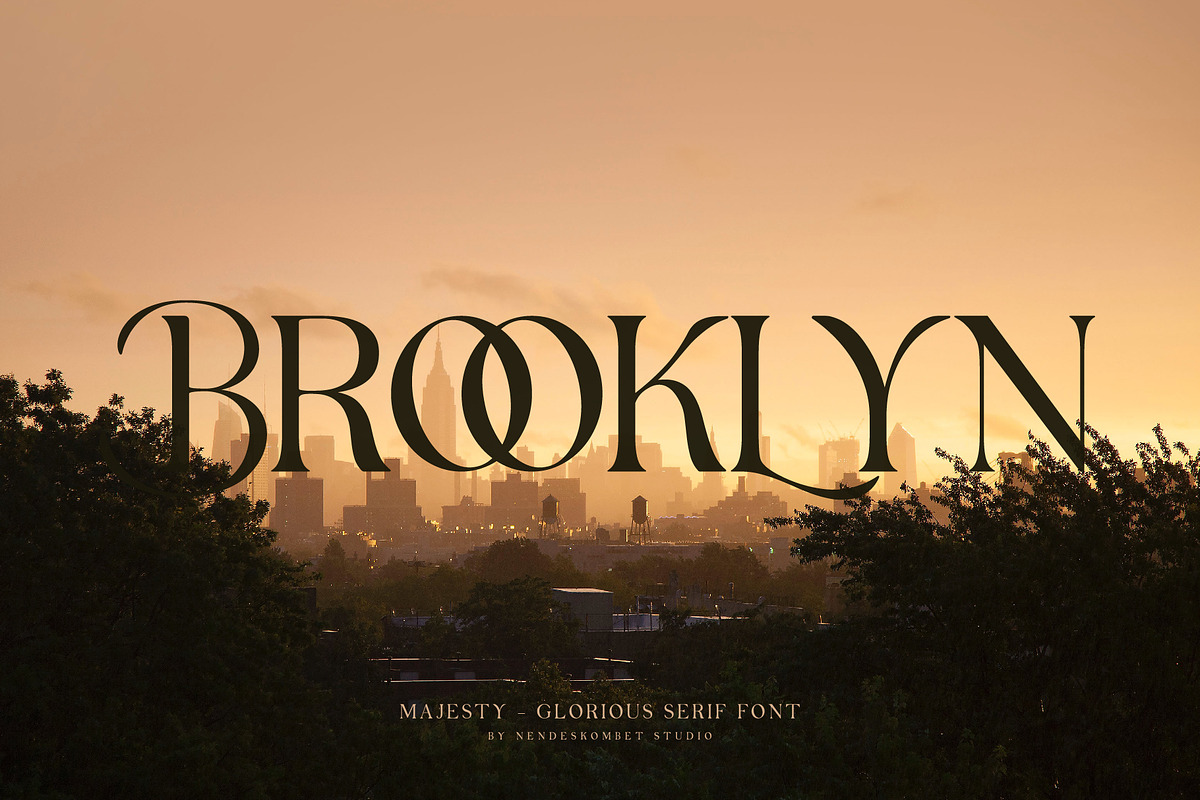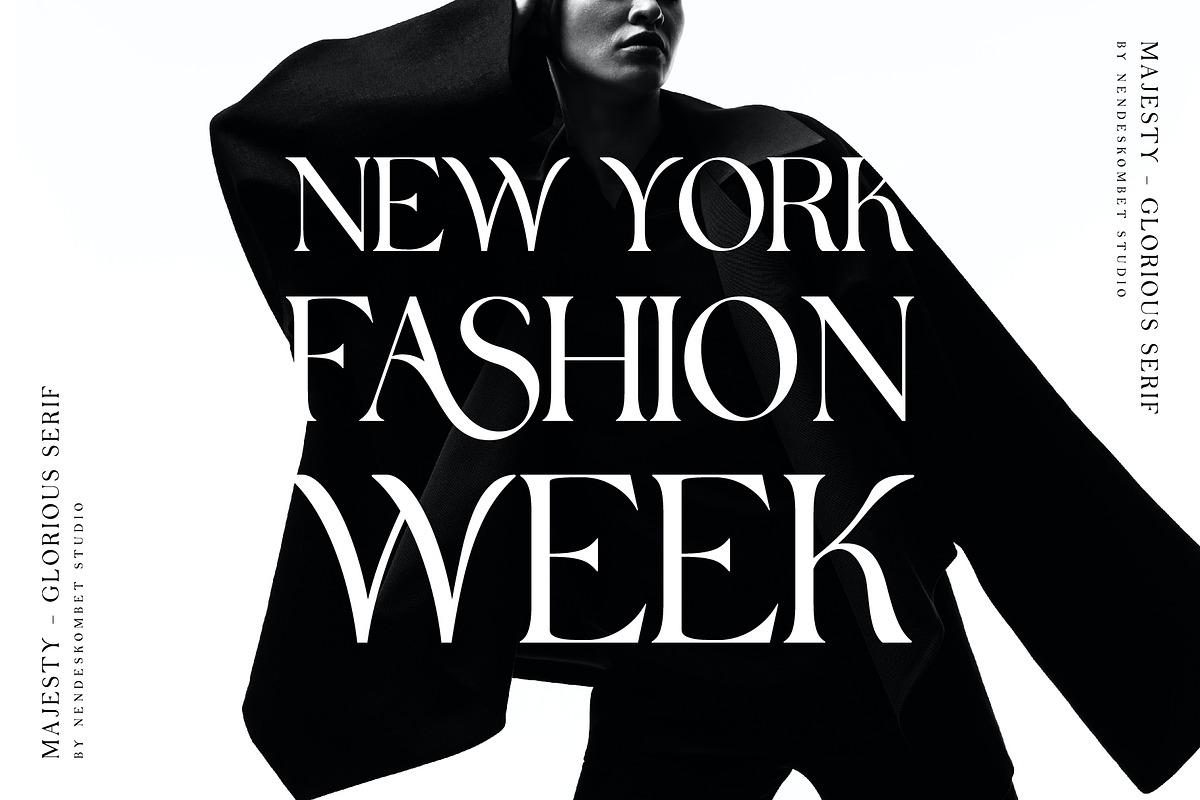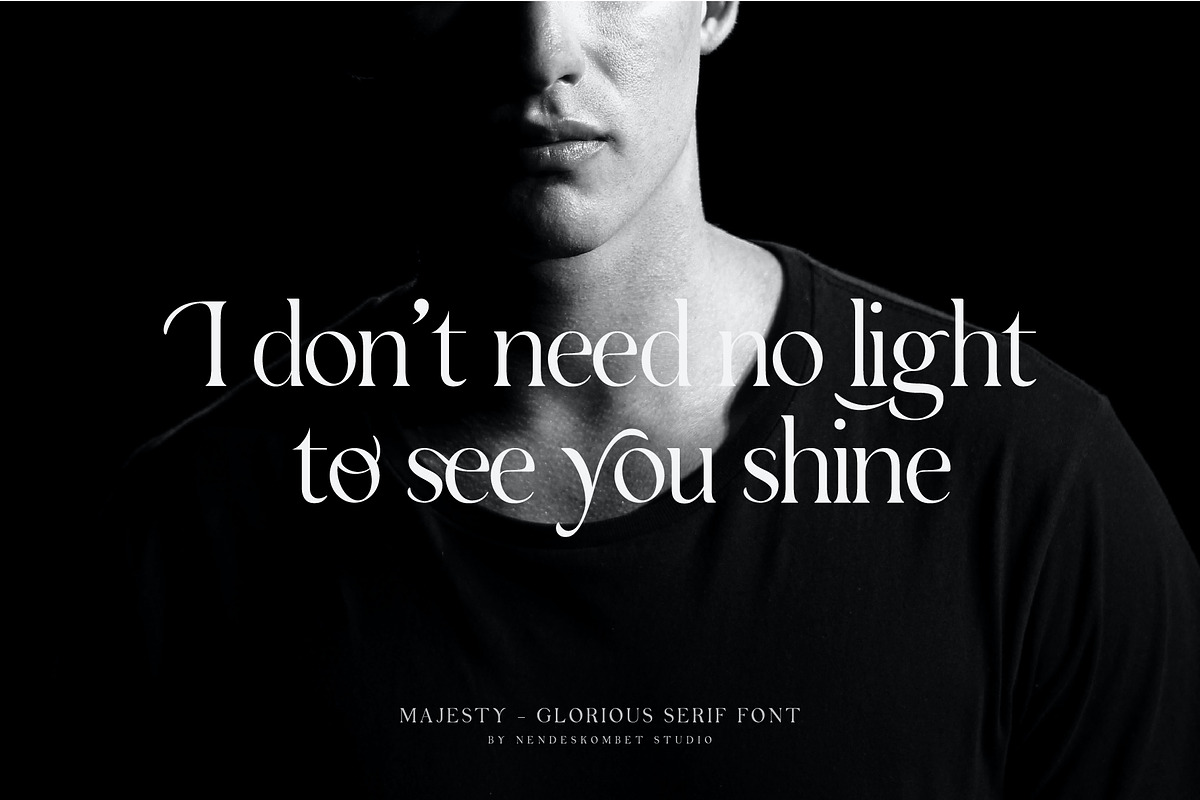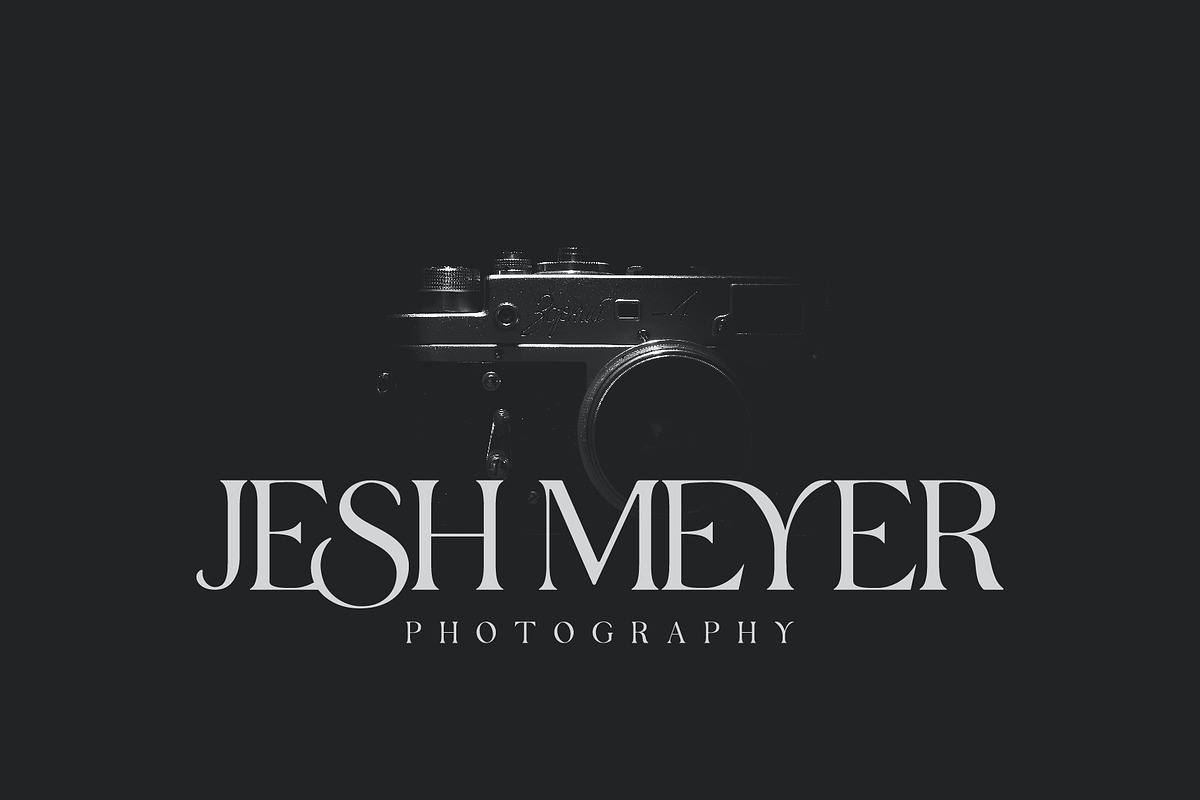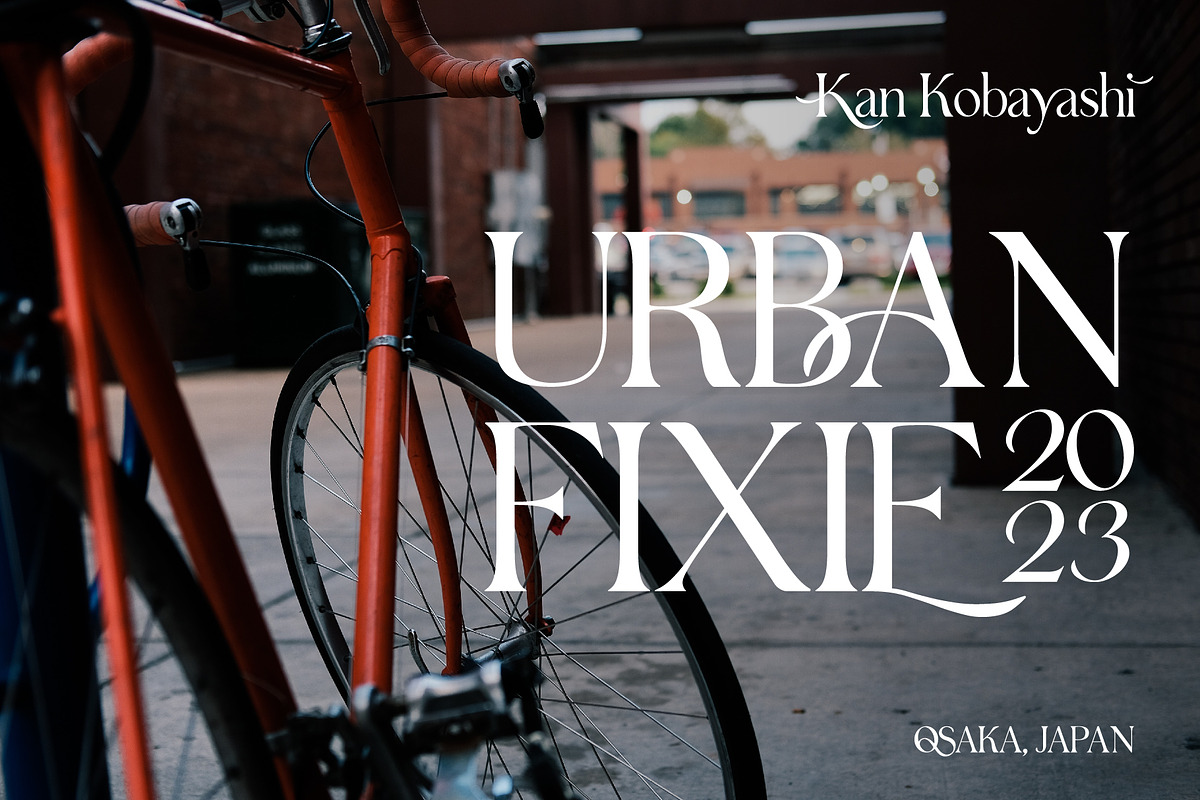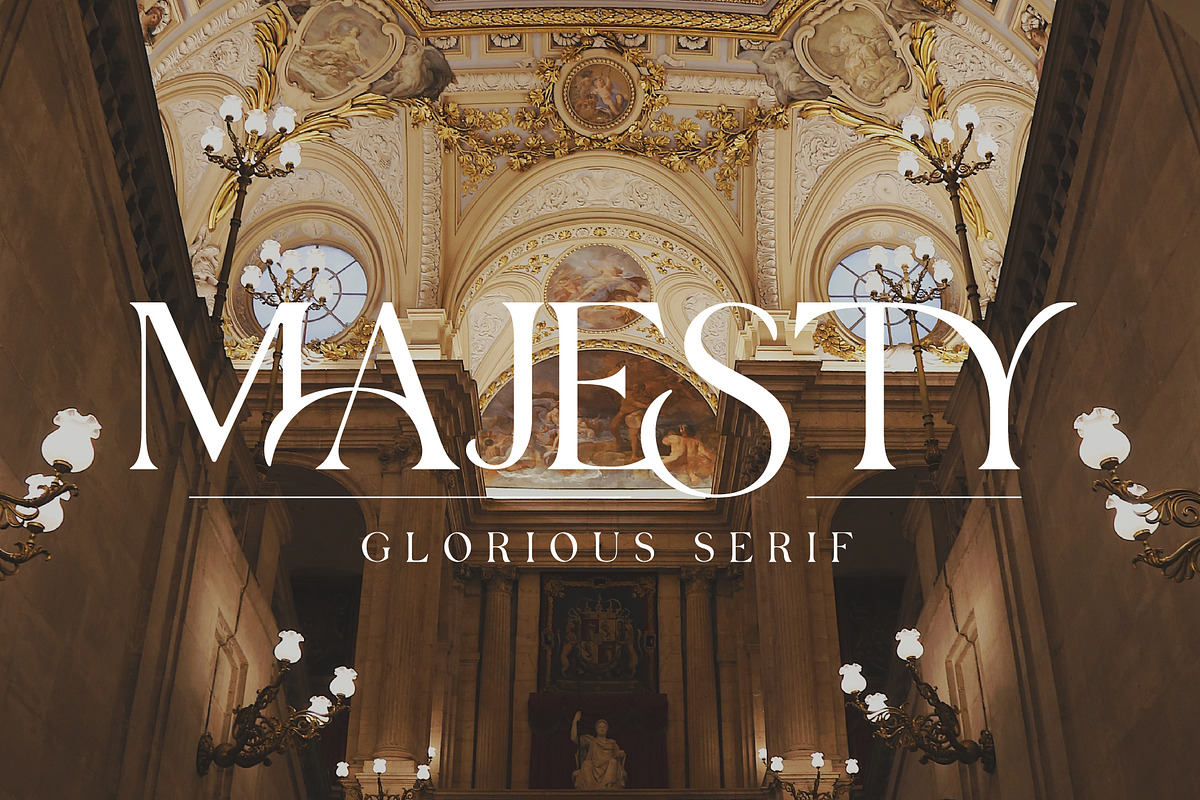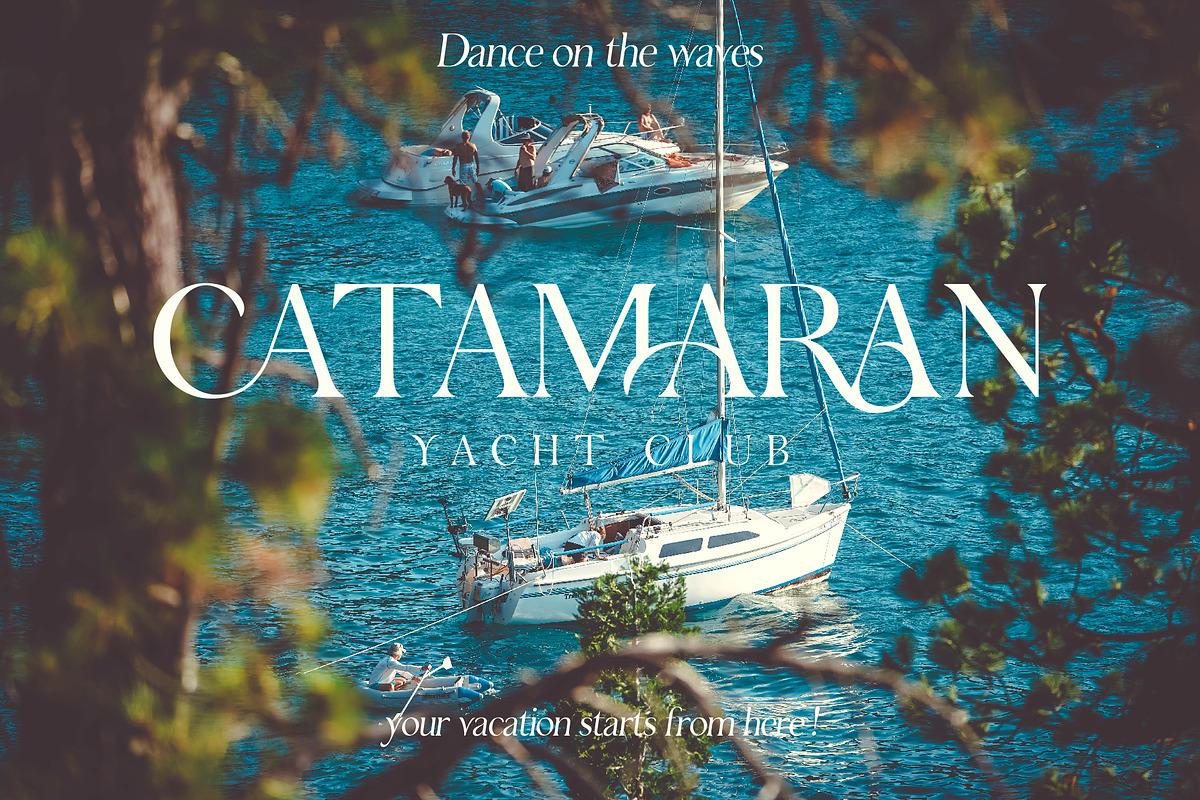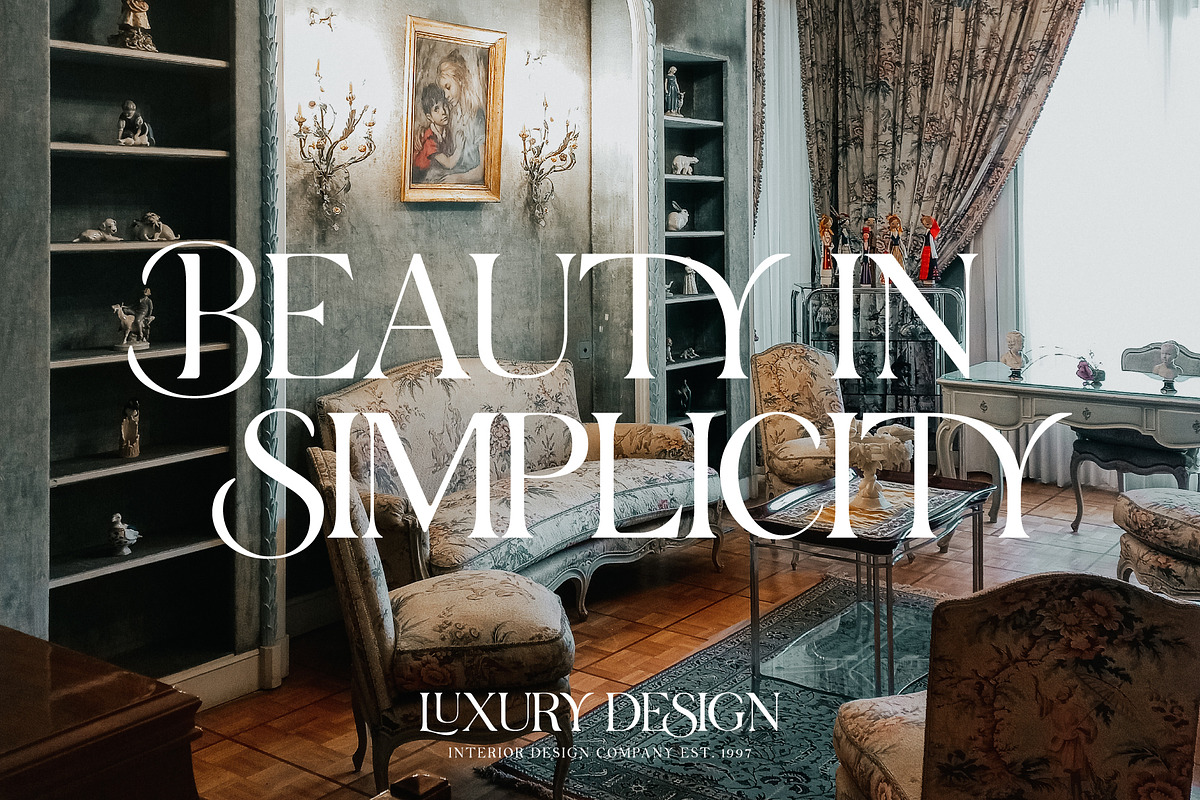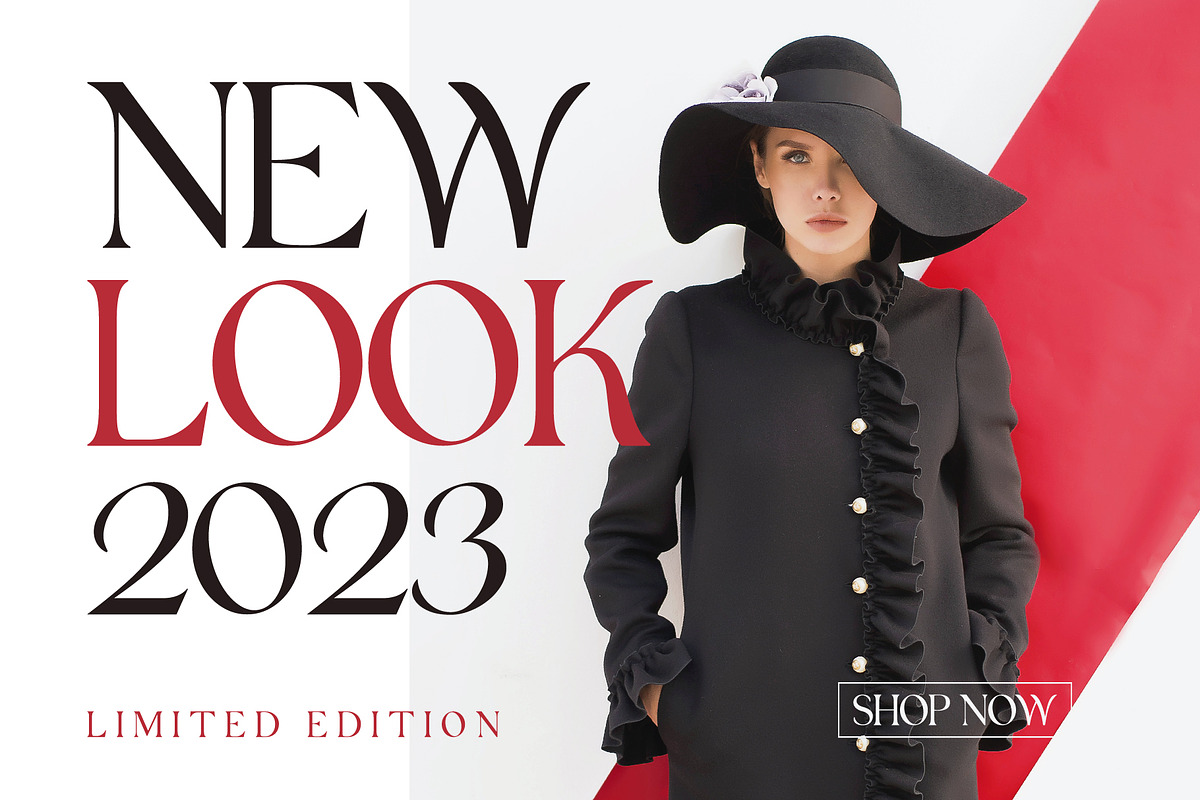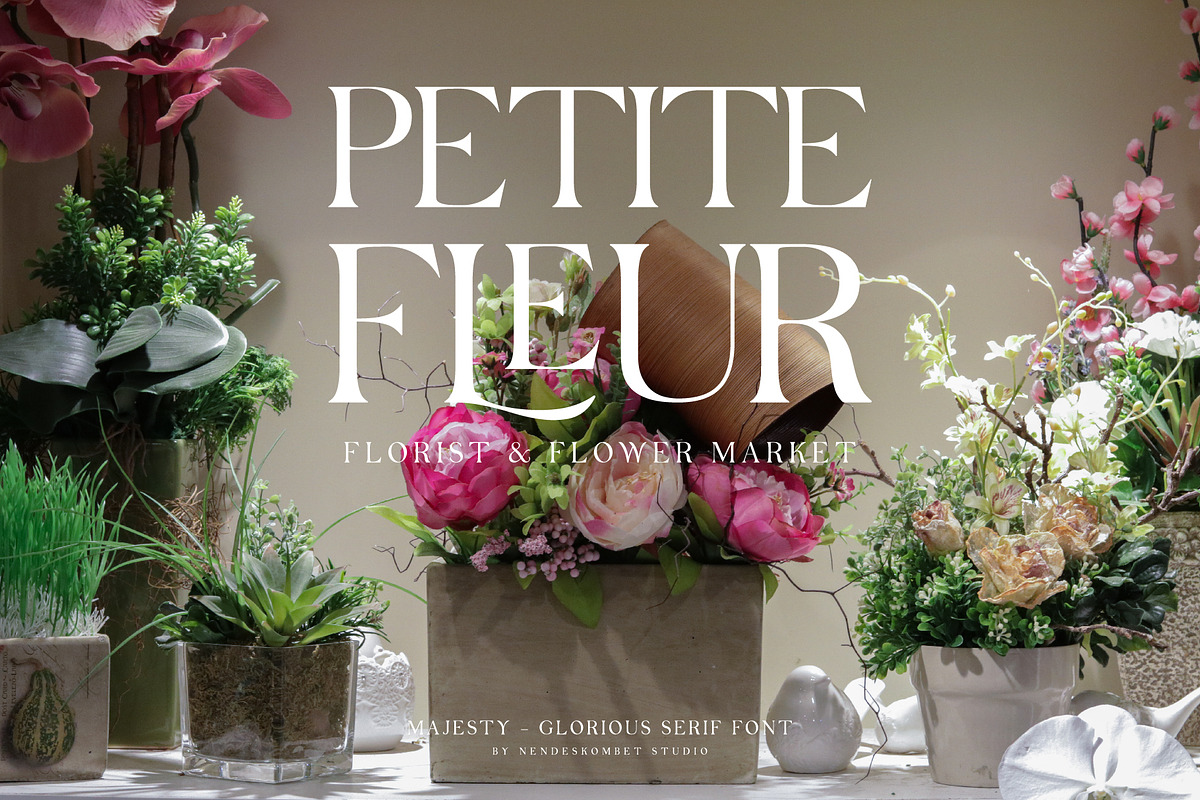
MAJESTY - GLORIOUS SERIF
MAJESTY is a classic, elegant, and glorious style font that uses ligatures to connect letters smoothly as well as many alternatives to make it more beautiful. Perfect for branding, logos, invitations, masterheads and more. MAJESTY has 33 ligatures, 47 alternatives for both upper and lower case, also numbers, punctuation marks. Moreover, you'll also get an italic version making it very versatile.
MAJESTY is also included full set of :
- MAJESTY italic version
- Uppercase and Lowercase Letters
- Multilingual Symbols